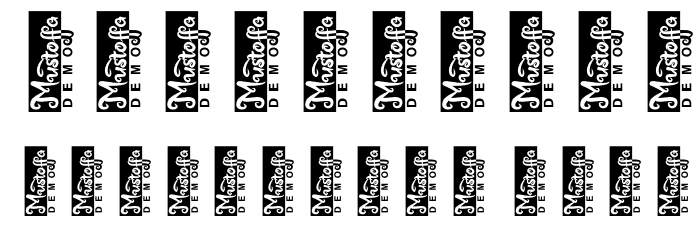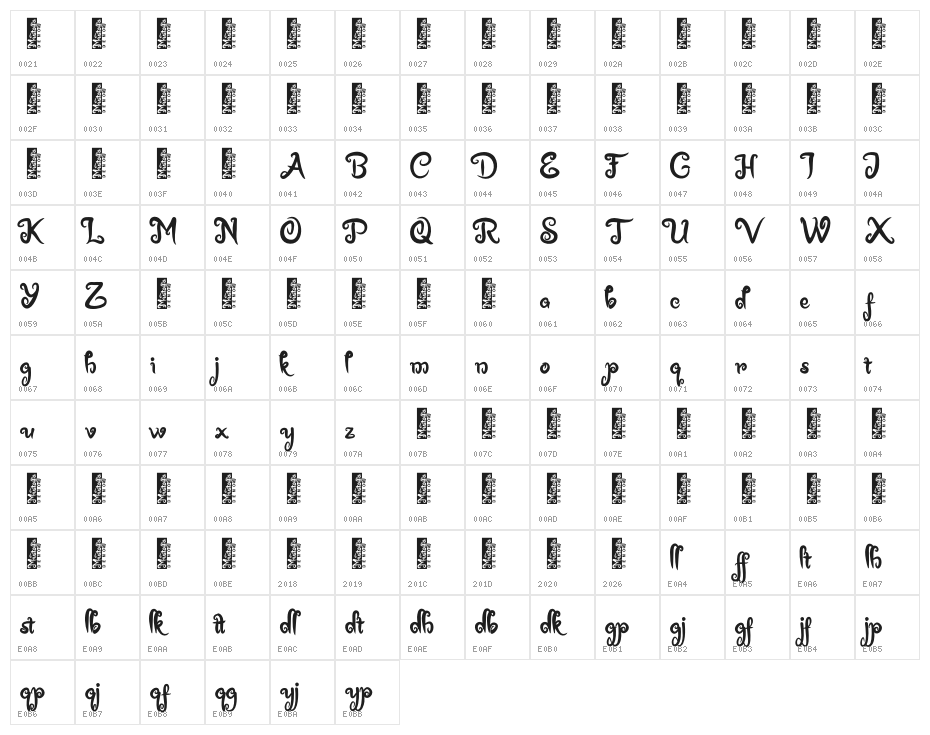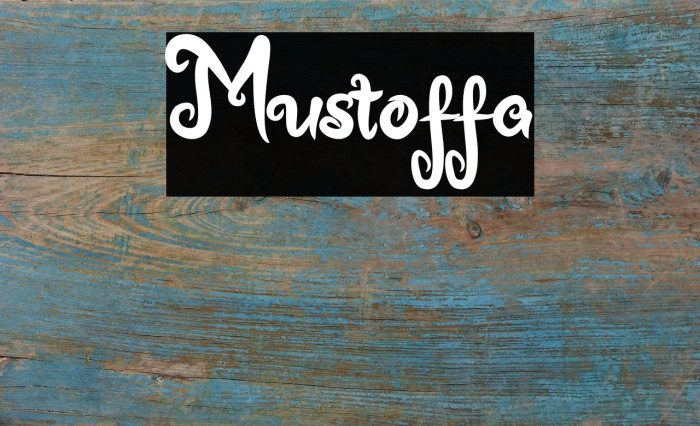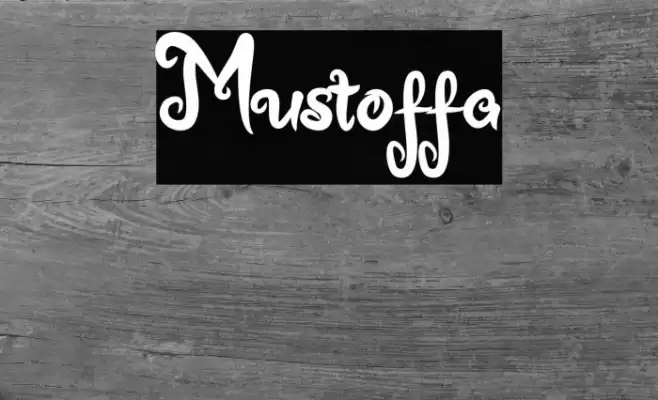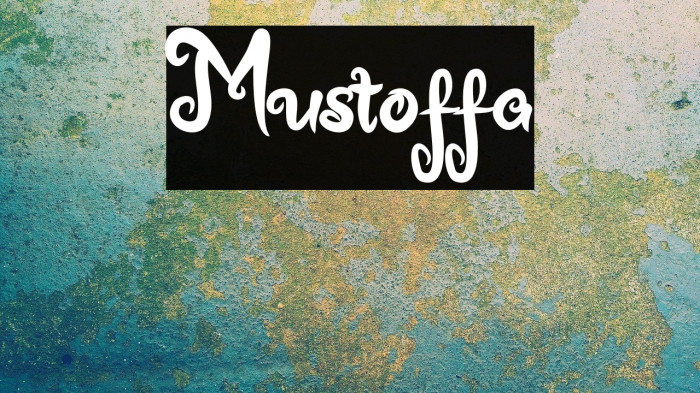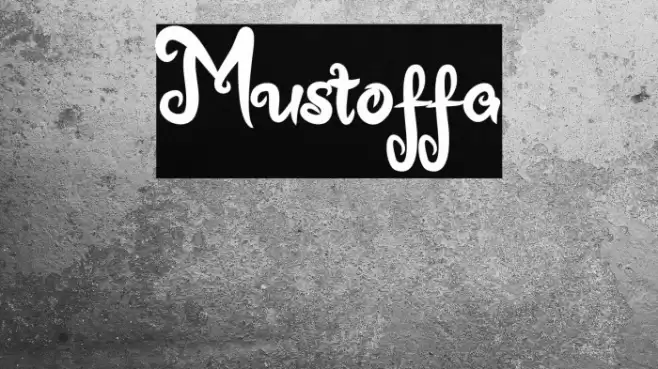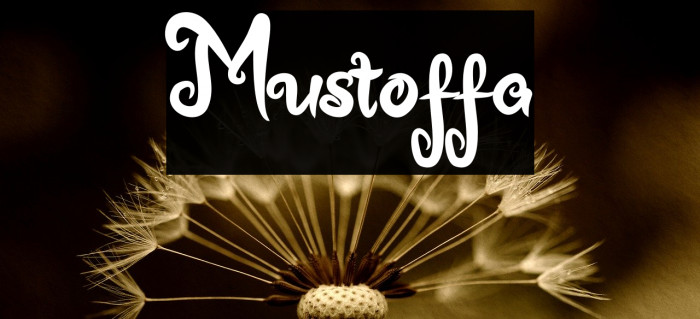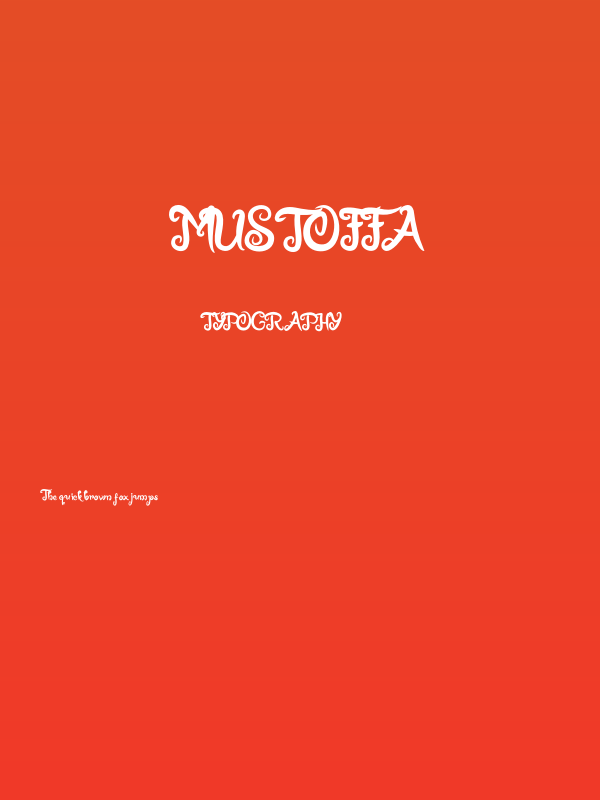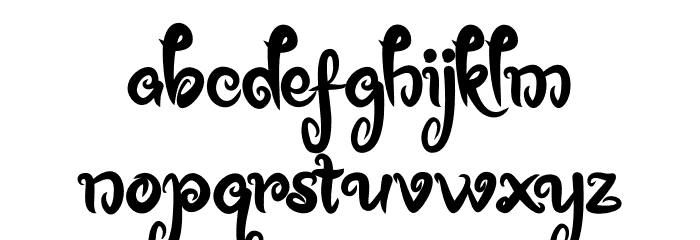
Mustoffa Font
Mustoffa Description
This font features a whimsical and playful design, characterized by its curly and flowing letterforms. The uppercase letters are bold and prominent, with distinct loops and swirls that add a decorative flair. The lowercase letters maintain a similar style, with exaggerated curves and a lively appearance. The numbers and special characters follow the same playful aesthetic, making the font suitable for creative and artistic projects. The overall design is eye-catching and unique, making it ideal for use in headlines, posters, and branding materials where a fun and engaging look is desired.
| Proposed Projects | Ideal for children's book covers, playful branding, greeting cards, and creative posters. |